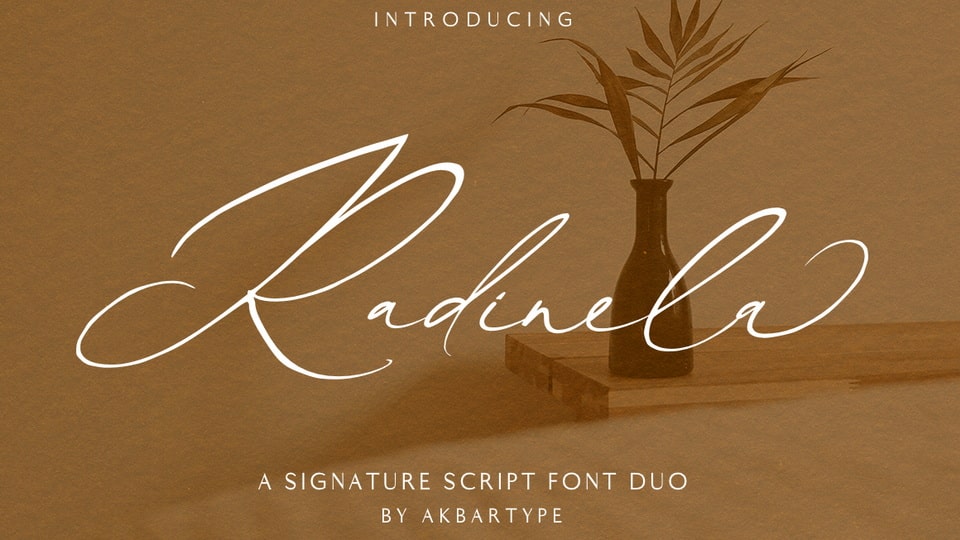
Feb 2, 2025Sans SerifScript & HandwrittenRadinela Font Duo Radinela is a gorgeous and simple signature script font duo. It’s contemporary and fashionable. This elegant font is legible and looks great as a headline or in an introductory text. Font DetailsDesigned by: AkbartypeWebsiteLicense: Free for personal use Download Radinela Font DuoFile size: 175.69 KBCreated: February 16, 2025Updated: February 16, 2025 Download Explore similar fonts Maziyah Duo Font Royale Amoure Duo Font Silky Crystal Font Dark Bristelle Font Biancha Font Jareth Signature Font # Elegant# Fashion# Hand-drawn# Handwriting# Modern# Signature More fonts by AkbartypeSherika Sans FontAdesina FontGeshina FontAshley Rosa FontSheliba Script FontHistopher FontNight Time Story FontCadisone Font